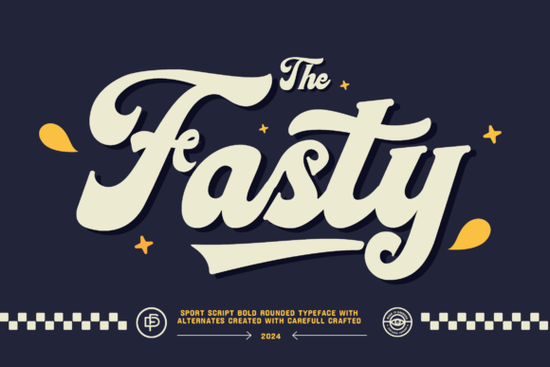
If you're looking for a script font that brings energy and a clear sense of theme to your projects, you might want to check out something with a bit of character. Fasty Font is a script font with a baseball theme that captures the excitement and nostalgia of America’s favorite pastime. Its flowing, cursive strokes mimic the smooth motion of a pitcher's windup or a batter's swing, making it a natural fit for sports-related designs, vintage-inspired apparel, and anything that needs a playful, authentic feel.
The letters in Fasty Font connect seamlessly, which gives your text a polished, hand-lettered look. Whether you're working on a team jersey, a poster for a little league event, or a custom print for a baseball fan, this font adds a layer of storytelling that plain typefaces just can't match.
What makes Fasty Font different from other script fonts?
A lot of script fonts look elegant or romantic, but they don't always carry a strong theme. Fasty Font stands out because its design incorporates subtle nods to baseball think hints of seams, bats, or caps woven into the letter shapes. That attention to detail means you don't have to add extra icons or graphics to communicate the sporty vibe. The font does the work for you.
Another thing worth noting is the readability. Some themed fonts sacrifice legibility for style, but Fasty Font keeps its cursive strokes clear and connected. That makes it practical for shorter headlines, logos, and product labels where you need people to actually read the text. If you've worked with other script options like Positive Mindset Font or Magnolia Signature Font, you'll notice that Fasty Font leans more into a sporty, casual energy rather than a formal or decorative style.
Can I use a baseball-themed script font for more than just sports?
Absolutely. Even though Fasty Font is built around a baseball theme, it works for a range of projects beyond just sports. The cursive, hand-drawn feel makes it a good match for summer-themed designs, outdoor events, food packaging, and even children's products. The baseball elements are present but not overwhelming, so the font still reads as a friendly script first.
For example, if you're designing a label for a craft soda or a banner for a backyard barbecue, Fasty Font adds a nostalgic, Americana touch without looking out of place. It's versatile enough to pair with simple sans-serif fonts for contrast, or with other script styles like the elegant curves you'd find in a clean signature-style typeface for a more layered look.
How does Fasty Font work for print-on-demand products?
If you're a print-on-demand seller, you know that the right font can make or break a design. Fasty Font is particularly strong for apparel like t-shirts, hoodies, and caps, where the baseball theme feels natural. The connected cursive letters create a smooth, flowing look that prints well on fabric and doesn't require complex adjustments.
You can also use it for mugs, tote bags, and posters. Since the font is a clean script, it works at different sizes without losing detail. For smaller items like stickers or pins, the legible letter shapes mean your text stays readable even when scaled down. If you've been using a signature-style script for your branding, Fasty Font offers a more playful alternative for seasonal or sports-themed releases.
What kind of projects suit a script font with a theme like this?
Here are a few ideas where Fasty Font really shines:
- Team apparel and uniforms – Names, numbers, and team mottos look authentic with baseball-inspired lettering.
- Event invitations and banners – Birthday parties, family reunions, or community fundraisers with a baseball theme.
- Vintage-style posters – The nostalgic feel of the font works well for retro designs or historical themes.
- Custom gifts – Personalized items for baseball fans, from coffee mugs to wall art.
- Packaging and labels – Small-batch products like sauces, snacks, or crafts that want a handcrafted, American look.
Pairing Fasty Font with a simple sans-serif for supporting text gives you a balanced design. For a more layered typography project, you might combine it with a brush script like Summer Brush Font for contrast, or with a festive option like Wonderful Christmas Font for holiday-themed sports merchandise.
Where can I use Fasty Font in my business?
If you run a small business or creative shop, this font can be a useful addition to your toolkit. Here are a few practical applications:
- Logos and branding – For a local baseball league, a sports bar, or a vintage-themed brand.
- Social media graphics – Posts promoting game days, events, or seasonal sales.
- Product branding – Labels for craft beverages, snacks, or handmade goods.
- Website headers and banners – Adding a sporty touch to your online store or blog.
Because Fasty Font is a script with a clear personality, it's best used for headlines and short phrases rather than long body text. That way, it stays readable and the baseball theme comes across without overwhelming the viewer. If you need a more understated script for larger blocks of text, consider a clean, modern script option that keeps the focus on readability.